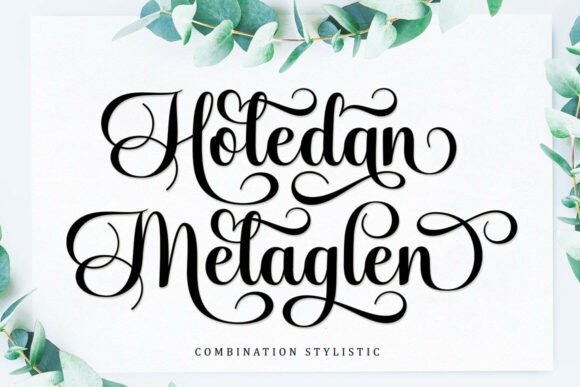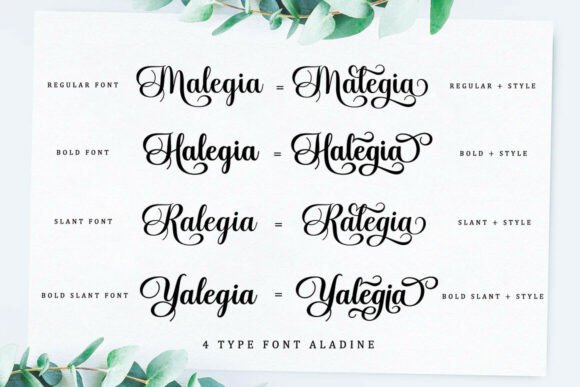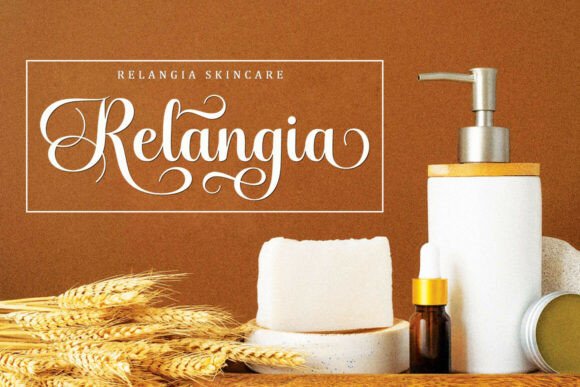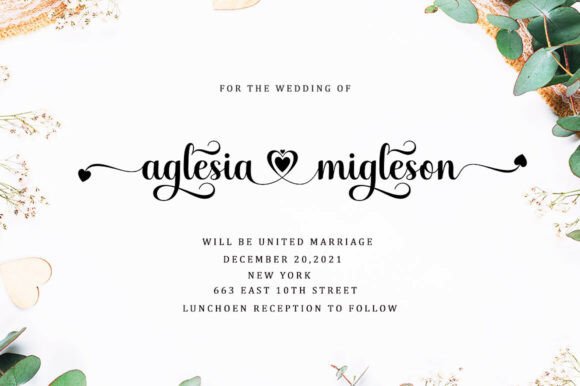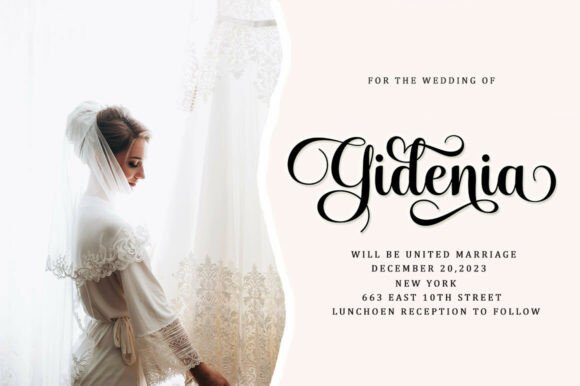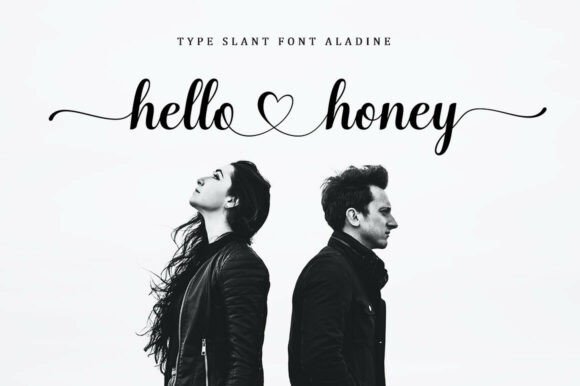
Find the Magic in Your Designs
Have you ever been working on a project, and suddenly, the perfect font appears in your design software, elevating everything around it to new heights? That’s exactly what happened to many designers when they stumbled upon the enchanting Aladine Font. This lovely script font has a way of infusing your designs with pure magic, making even the most mundane messages feel like fine art.
With its dramatic, sweeping swashes and lyrical, dancing rhythm, Aladine Font is the perfect choice for designers looking to add a touch of luxury and whimsy to their projects. Whether you’re a floral designer, jewelry boutique owner, or luxury event planner, this font is sure to help you create stunning visuals that leave a lasting impression on your audience.
Aladine Font Key Features
- Font Family: Aladine Font is a script font, ideal for creative and elegant designs.
- Character Set: Aladine Font includes a wide range of characters, including uppercase and lowercase letters, numbers, and punctuation marks.
- Unique Characteristics: Aladine Font features a unique, cursive design with subtle flair and elegance, making it perfect for creating eye-catching headlines and titles.
Aladine Font Review
Overall, the Aladine Font is a solid, well-crafted font that can add a touch of elegance to your designs. ✨ Here are a few things that work well:
- The font has a nice balance of serenity and sophistication, making it perfect for upscale branding and advertising.
- The elegant swashes and subtle flourishes add a level of sophistication that can elevate any design.
- The font’s versatility allows it to be used in a variety of contexts, from headlines to body copy.
- The font may not be the best choice for text-heavy designs, as the swashes can make the text feel cluttered.
- The font’s elegance can also make it feel a bit over-the-top or pretentious in some contexts.
- The font may not be the best choice for small text sizes, as the details can get lost.
- ⚠️ The font may also require some adjustments in terms of font size, line height, and spacing to look its best.
Overall, the Aladine Font is a beautiful, high-end font that can add a touch of sophistication to your designs. However, it may not be the best choice for every project. With some careful consideration and adjustments, it can be a great addition to your design toolkit.
For the most effective use of the Aladine font:
- Pair it with a simple, clean background to let the font shine.
- Use it for invitations, wedding stationery, or other elegant designs.
Alternatives to Aladine Font for Designers
Playfair Display is an elegant, high-end serif font suitable for luxury brands, high-end fashion, and fine art. It features intricate details and ornate flourishes, making it perfect for creating a sophisticated and luxurious atmosphere. Compared to Aladine Font, Playfair Display is more formal and traditional, while Aladine Font has a more modern and minimalist feel.
Merriweather is a classic, elegant serif font ideal for body text, headings, and titles. It features a traditional look with a modern twist, making it suitable for a wide range of applications, from book publishing to corporate branding. Compared to Aladine Font, Merriweather is more formal and traditional, while Aladine Font is more modern and flexible.
Lato is a modern sans-serif font designed for digital applications, including websites, mobile apps, and advertising. It features a clean and simple design, making it perfect for creating a contemporary and minimalist look. Compared to Aladine Font, Lato is more modern and minimalist, while Aladine Font has a more elegant and sophisticated feel.